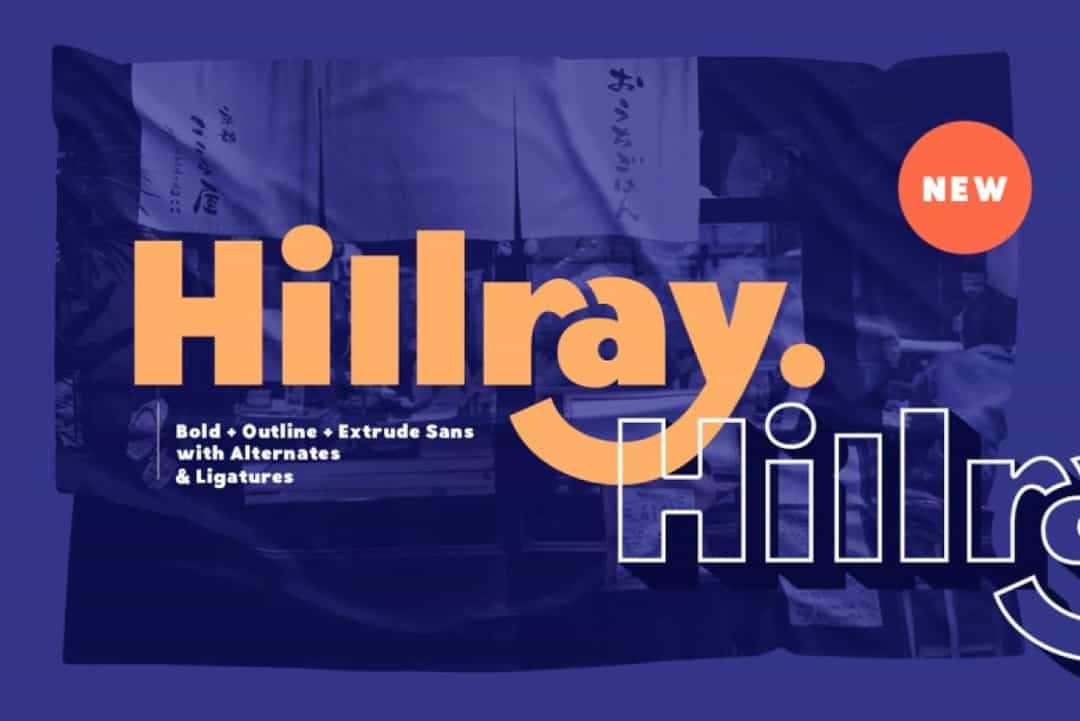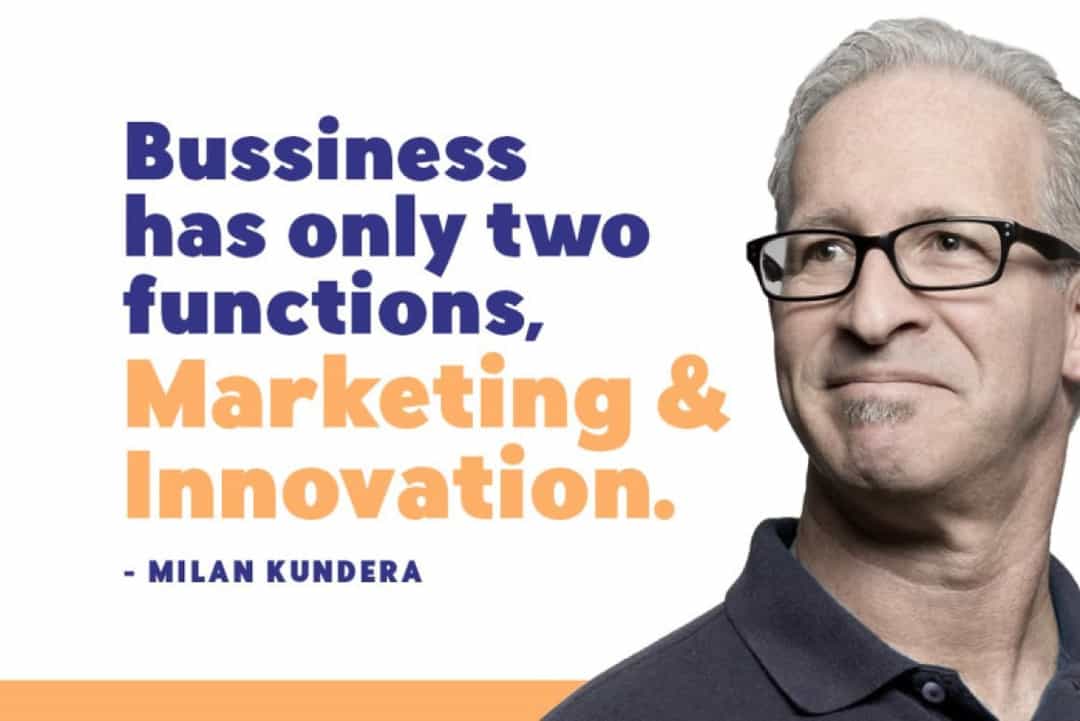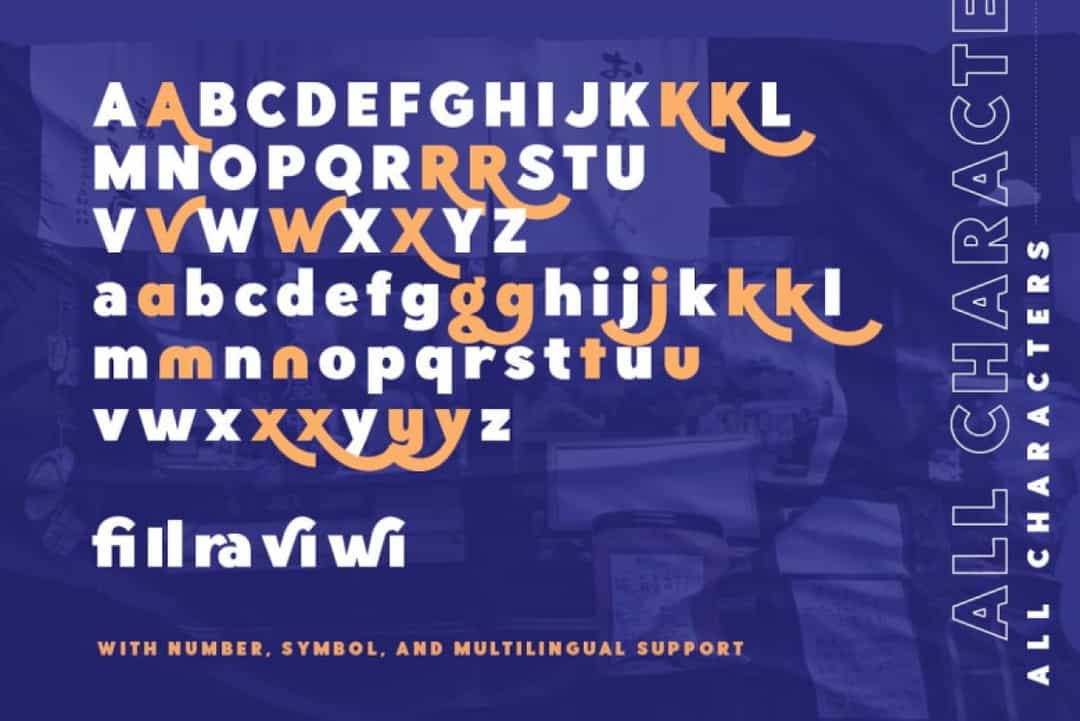
Hillray is a bold sans serif font with ligatures that alternate every character! You can use this font to create distinctive branding using this bold and stylish font which also includes outline style and extrude effects for added effect!